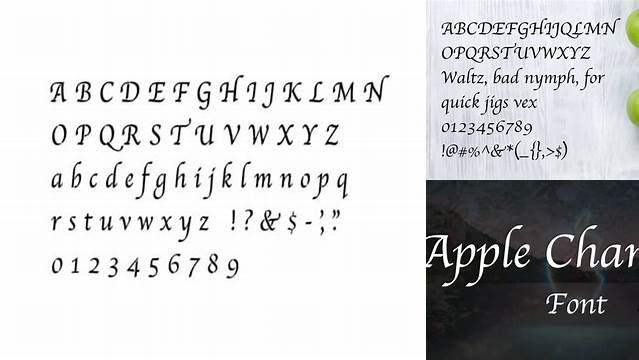
Hey guys! Are you on the hunt for the Apple Chancery font and eager to bring its classic elegance to your PC? You've come to the right place! In this comprehensive guide, we'll dive deep into the world of Apple Chancery, exploring its history, unique characteristics, and, most importantly, how you can download it for free on your PC. We'll walk you through everything, ensuring you get your hands on this beautiful typeface without any hassle. Get ready to transform your projects with a touch of timeless sophistication!
What is Apple Chancery Font?
First off, let's get acquainted with what makes Apple Chancery so special. This font isn't just another typeface; it's a piece of digital art with a rich history. Designed by the talented Charles Bigelow in the early 1990s, Apple Chancery is a calligraphic font that beautifully mimics the style of 18th-century handwriting. Its elegant, flowing strokes and distinctive letterforms give it a unique charm that's both classic and stylish. It's the kind of font that instantly adds a touch of class to any project, whether it's a wedding invitation, a historical document, or a creative design. What sets Apple Chancery apart is its ability to blend the traditional with the modern, making it a versatile choice for various applications. Think about the documents or designs you've seen where the text seems to dance across the page – chances are, Apple Chancery was involved! This font’s intricate details and graceful curves evoke a sense of timelessness, making it a favorite among designers and typographers who appreciate the finer things in the world of fonts. But beyond its aesthetic appeal, Apple Chancery has a fascinating story. It was originally created as part of Apple's suite of fonts, intended to showcase the capabilities of their operating system in displaying high-quality typography. This historical context adds another layer of appreciation for the font, knowing that it was designed to push the boundaries of digital design at the time. So, in essence, Apple Chancery is more than just a font; it’s a testament to the artistry and innovation in the world of typography. As we delve deeper into this guide, you'll understand why having this font in your collection can significantly elevate your creative projects. Trust me, guys, once you start using it, you'll fall in love with its unique character and the sophistication it brings to your work!
Why is Apple Chancery Font So Popular?
So, why all the buzz around Apple Chancery, you might ask? Well, there's a multitude of reasons why this font has captured the hearts of designers and typographers alike. Its enduring popularity stems from its unique blend of elegance, versatility, and a touch of historical charm. First and foremost, Apple Chancery is incredibly elegant. Its calligraphic style, reminiscent of 18th-century handwriting, exudes a sense of sophistication that few other fonts can match. This makes it a perfect choice for projects where you want to convey a sense of class, refinement, or even a hint of nostalgia. Imagine using it for wedding invitations, certificates, or even the branding for a high-end product – it instantly elevates the overall aesthetic. But it’s not just about looks; Apple Chancery is also surprisingly versatile. While it shines in formal and traditional settings, it can also be used in more modern and creative contexts. Its unique letterforms make it stand out in logos, posters, and other graphic designs. Think about the impact of using it to create a memorable headline or a distinctive quote – it grabs attention while maintaining a sense of style. Another key factor in its popularity is its historical significance. As a font originally developed for Apple, it carries a certain prestige and a connection to the history of digital typography. This backstory adds to its appeal, especially for those who appreciate the artistry and craftsmanship behind font design. Moreover, Apple Chancery has a timeless quality. Unlike some trendy fonts that come and go, its classic style ensures that it remains relevant and stylish year after year. This makes it a safe and reliable choice for projects where you want to create a lasting impression. In a world where fonts are often seen as disposable, Apple Chancery stands out as a true classic. The key takeaway here, guys, is that Apple Chancery is more than just a pretty font. It’s a statement of style, a nod to history, and a versatile tool for creative expression. That’s why it continues to be a favorite among designers and typographers who appreciate the power of a well-crafted typeface. If you're looking for a font that adds a touch of elegance and sophistication to your work, Apple Chancery is definitely worth considering. You'll be amazed at the difference it can make!